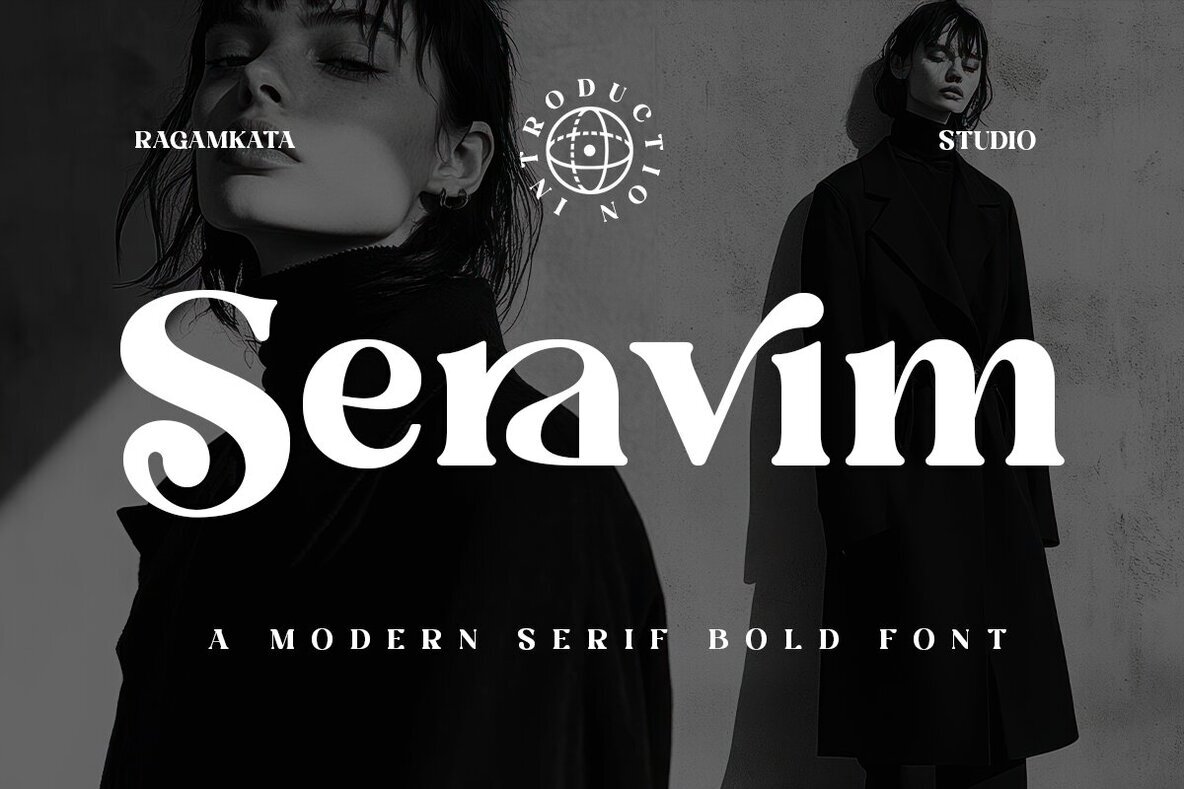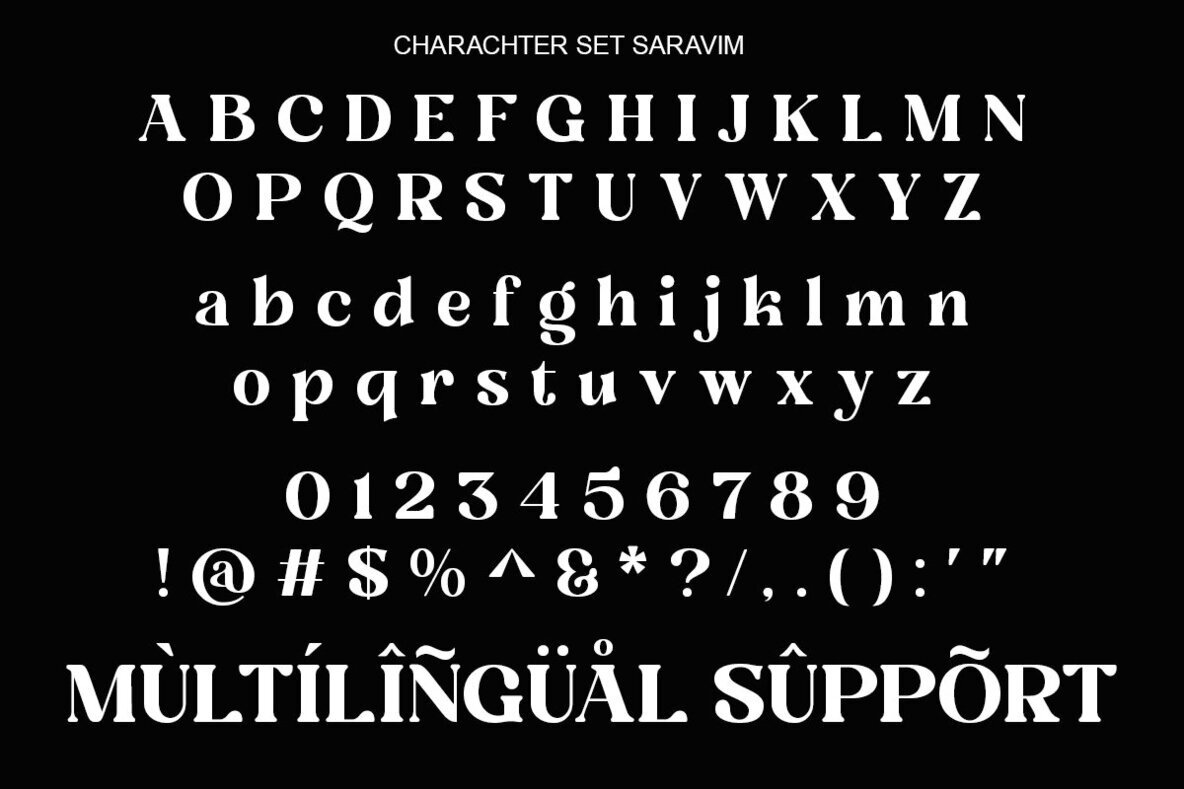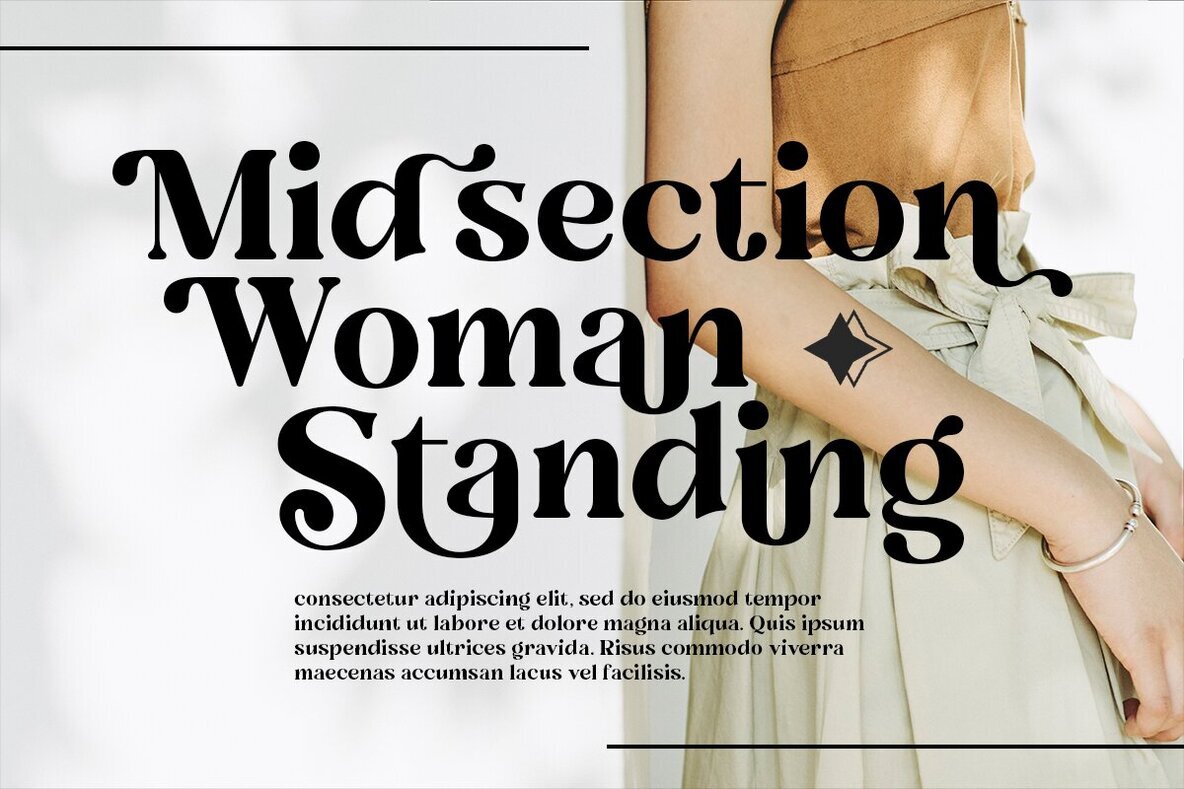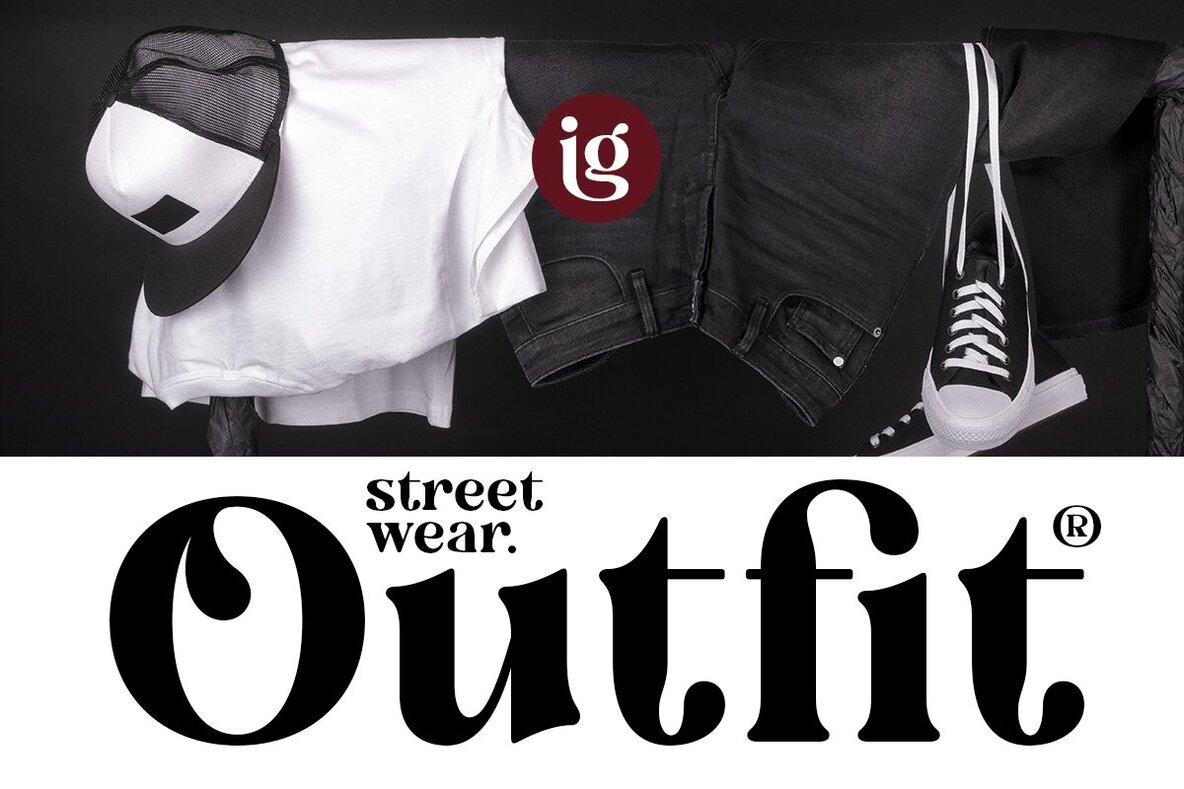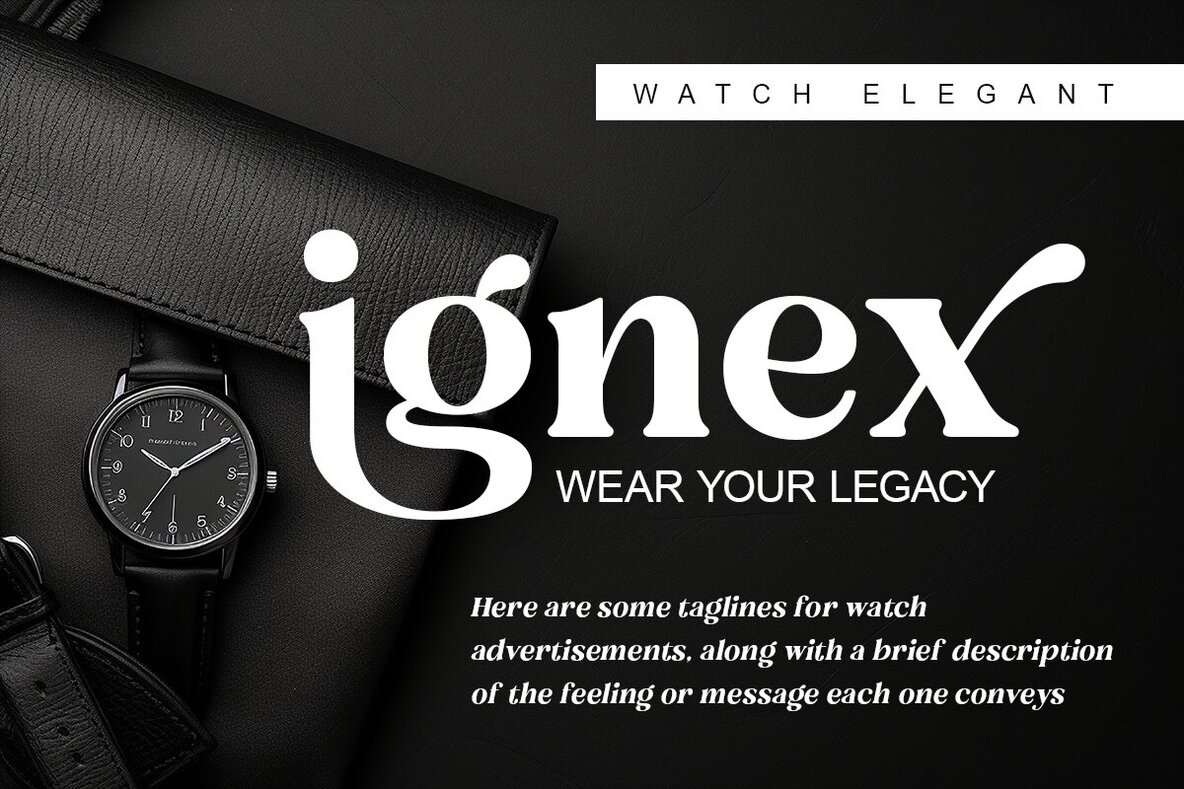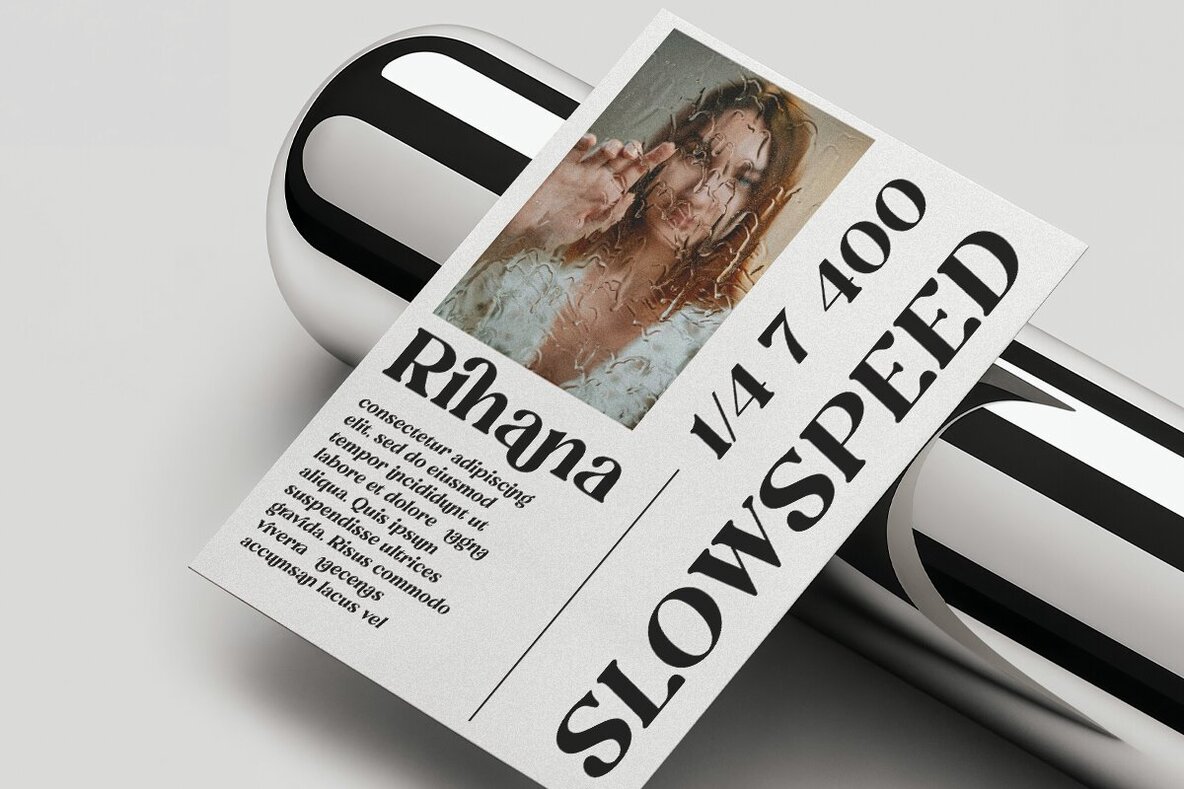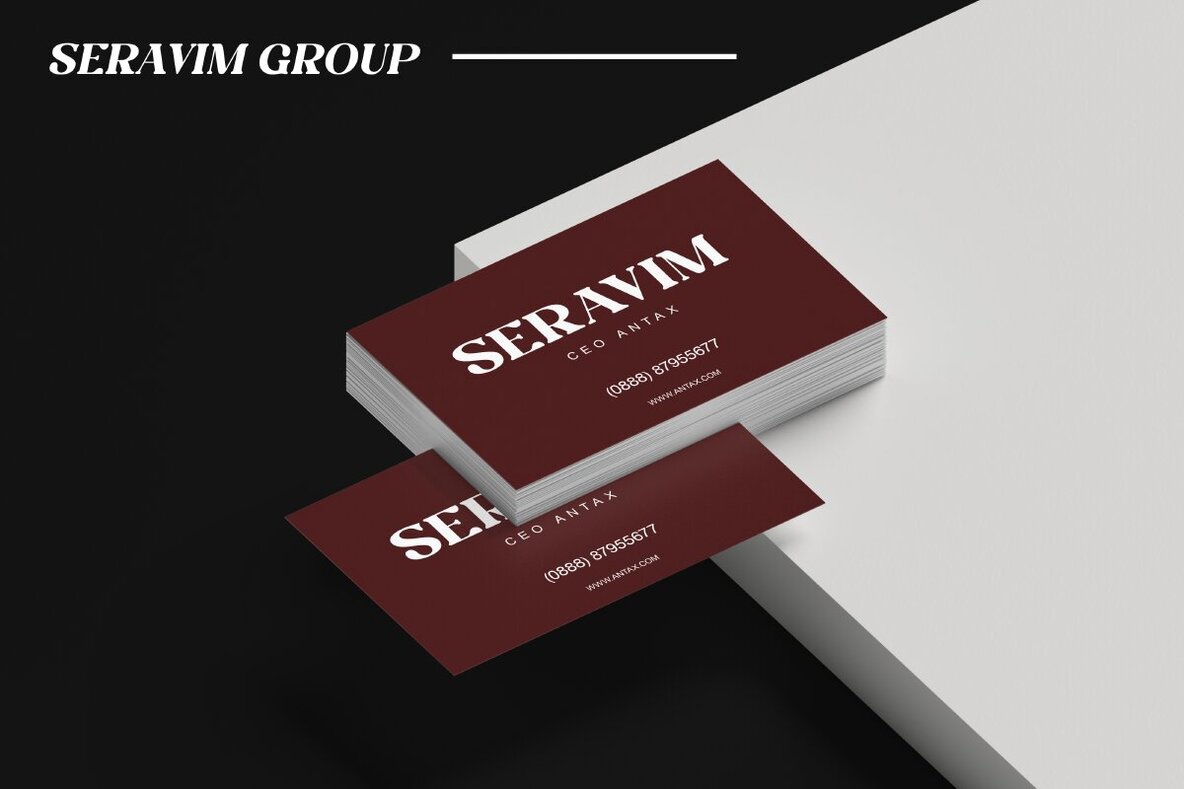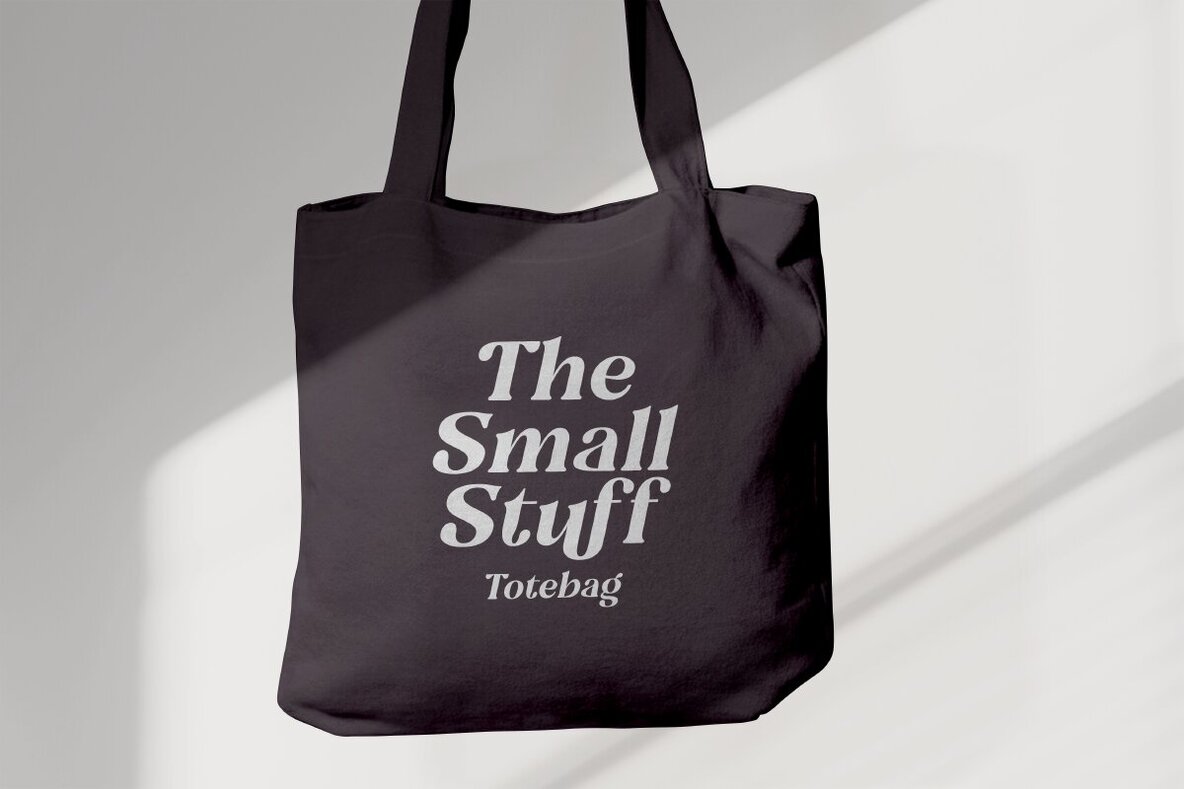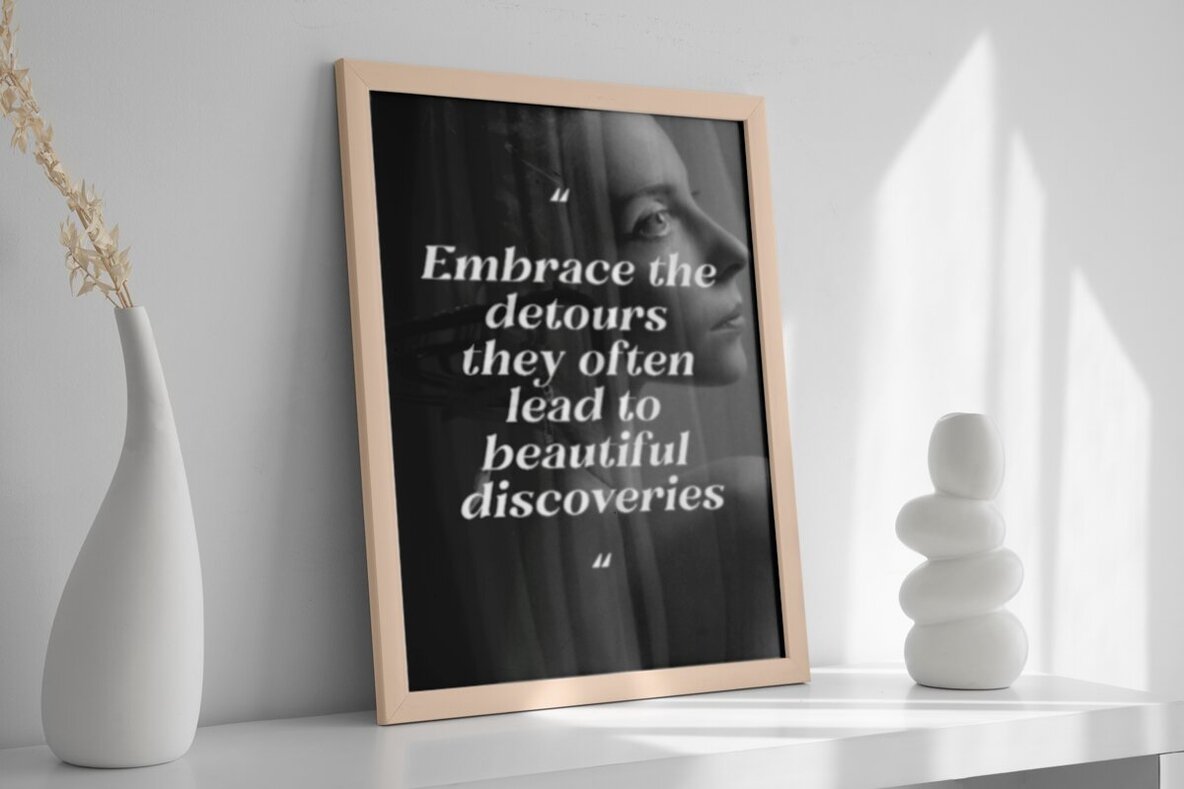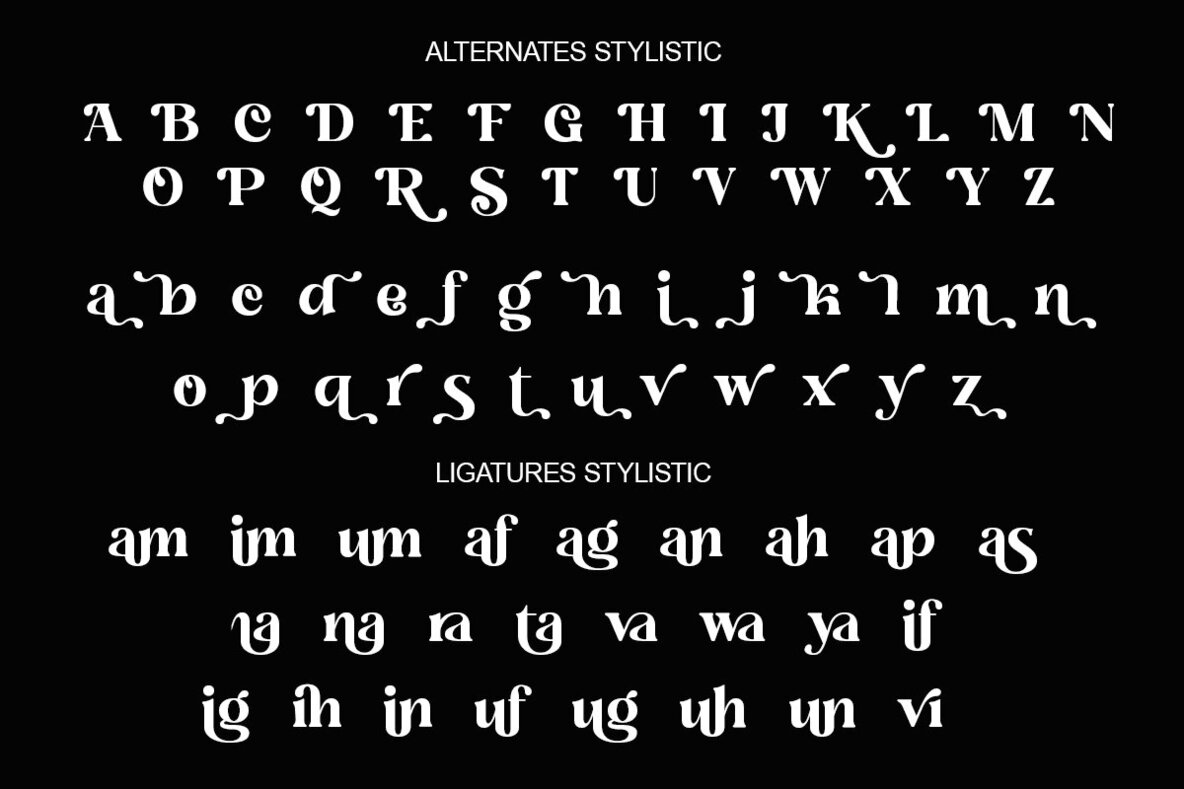
Seravim Font
Step into nostalgia with Seravim, a bold serif font that evokes the charm of vintage advertisements and early personal computers. This typeface is your ideal companion for infusing a true retro vibe into your creative projects. Whether you're crafting eye-catching typographic artwork or enhancing web designs, Seravim provides the perfect touch of authenticity and style. Meticulously crafted for modern creative professionals, Seravim offers a unique blend of classic and contemporary aesthetics. It allows you the freedom to explore designs that require a vintage feel without sacrificing elegance and modern appeal. Embrace the possibilities with this premium typeface, versatile enough for various applications and projects.Seravim Font: Retro Boldness Reimagined